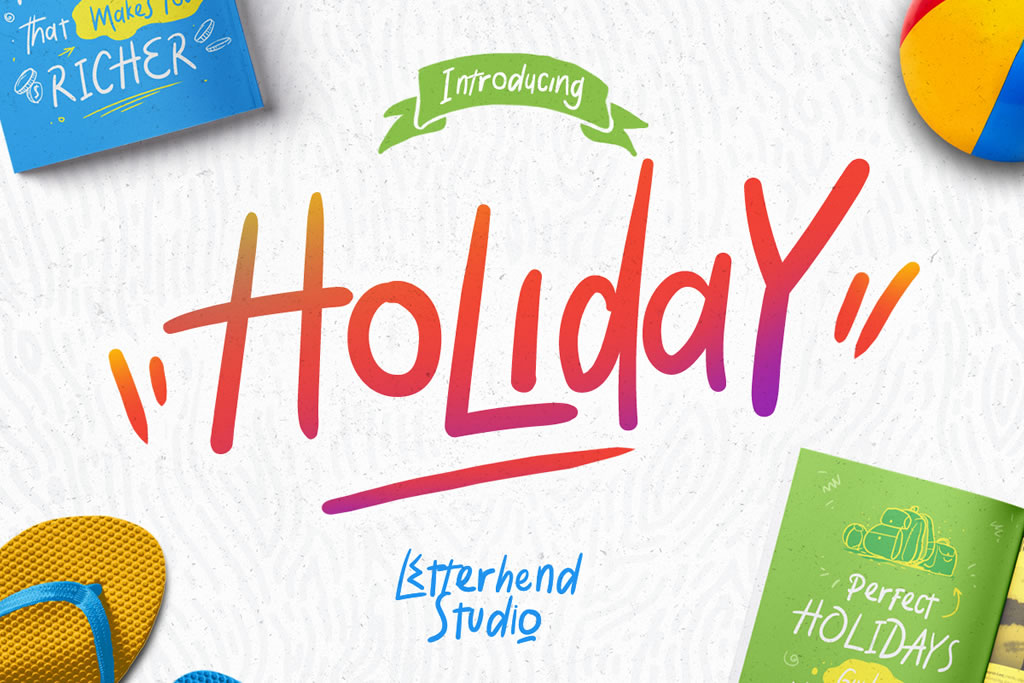
Holiday Font
Perfect for greeting cards, holiday invitations, festive branding, posters, and seasonal marketing materials.
The Holiday Font excites designers with its cheerful, playful script style that instantly brings a warm, festive vibe to any project.
The Holiday Font Free Download is a joyful, hand-lettered script featuring smooth, flowing strokes and a friendly feel, ideal for creating inviting holiday greetings, event invitations, and seasonal branding.
One of the key strengths of Holiday Font is its ability to evoke celebration and warmth while maintaining clear readability across print and digital platforms.
In branding, Holiday communicates joy, festivity, and friendliness. It pairs beautifully with vibrant colors, seasonal illustrations, and cozy design elements to craft memorable holiday visuals.
For digital projects, this font enhances website banners, social media posts, and email campaigns, adding a festive and engaging touch to your messaging.